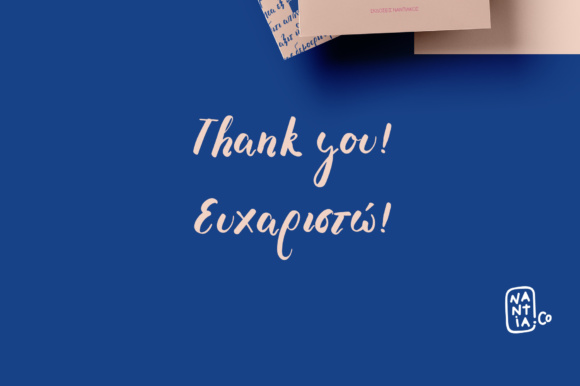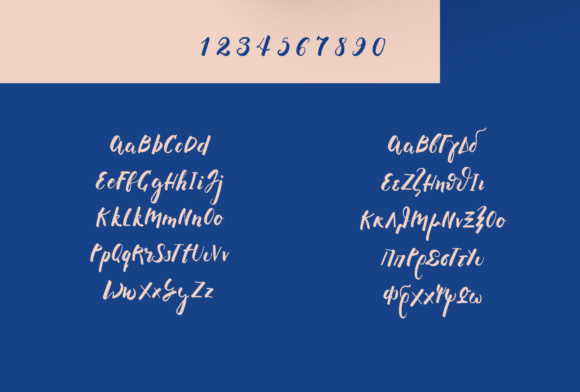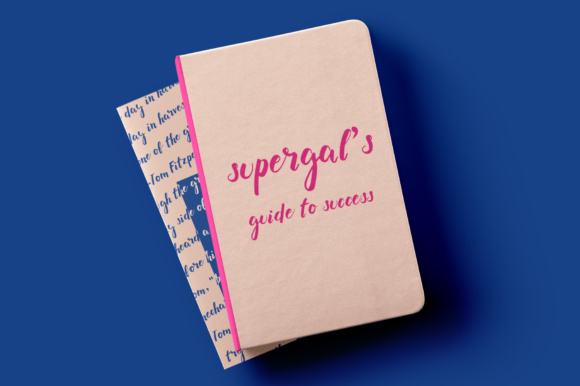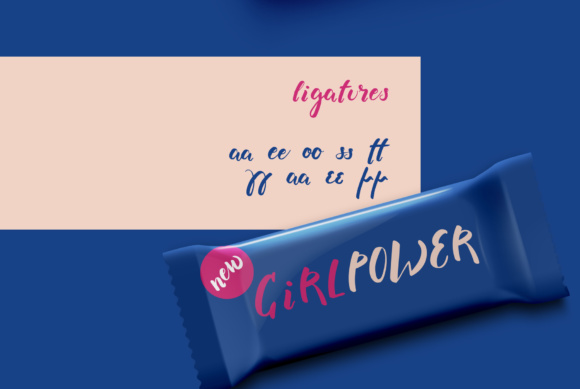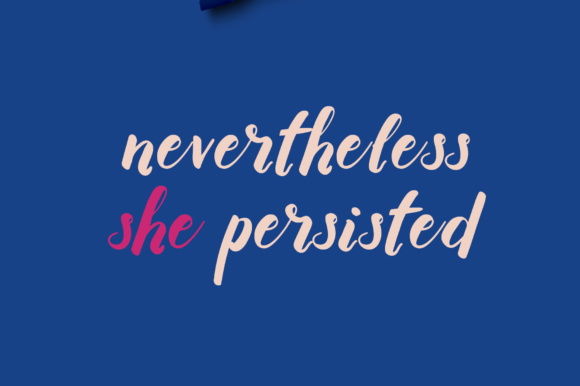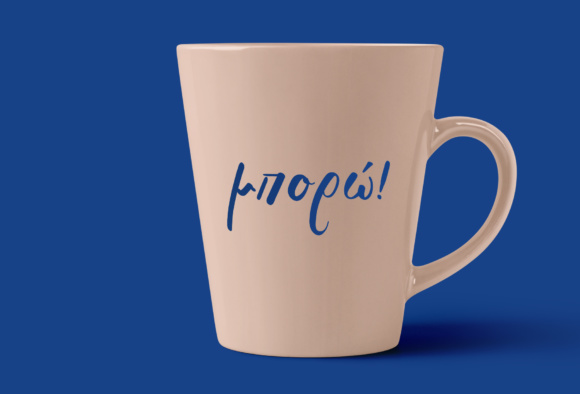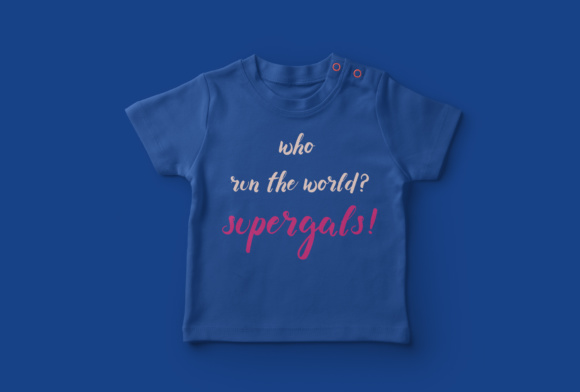
Supergal Font
About Supergal Font
The Supergal is a decorative brush font with which you can achieve a handwritten lettering feel. The style is perfect for modern designing needs. It has a really nice flow so you can use it in a large text if you want to give them a touch of personality.